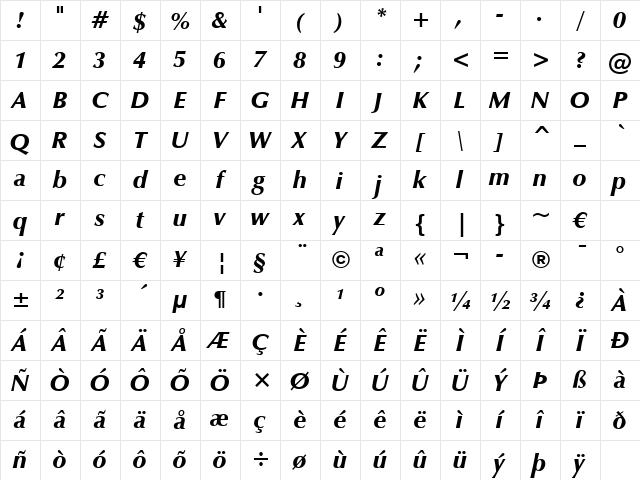
ZapfHumnst Ult BT Ultra Italic
Style: Ultra Italic
ZapfHumnst Ult BT Family
Complete ZapfHumnst Ult BT Ultra Italic glyph index. Displaying only characters natively supported by ZapfHumnst Ult BT Ultra Italic font.
Design Context for ZapfHumnst Ult BT
ZapfHumnst Ult BT is a composed and adaptable typeface that performs quietly and consistently across a wide range of design contexts. The slanted form adds forward momentum and visual energy.
Pro Tip: Use ZapfHumnst Ult BT for emphasis, pull quotes, and subheadings where its slanted energy can add rhythm to the layout.